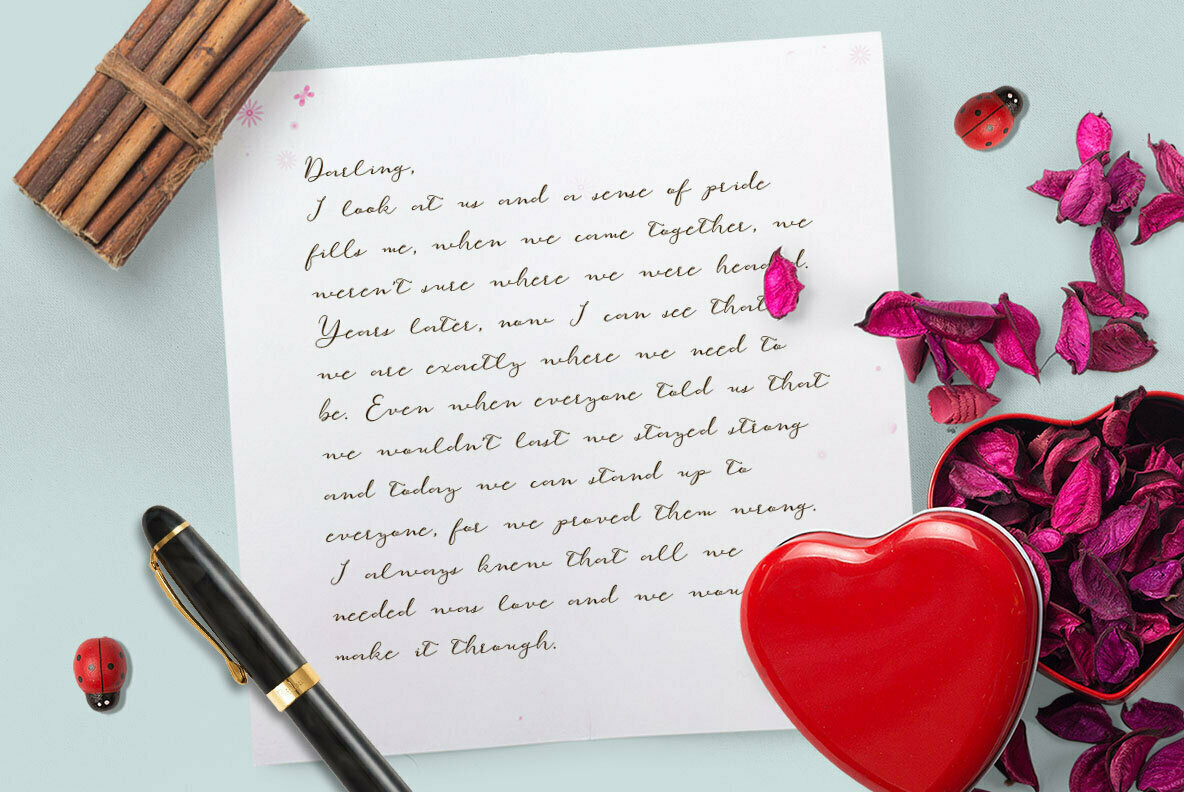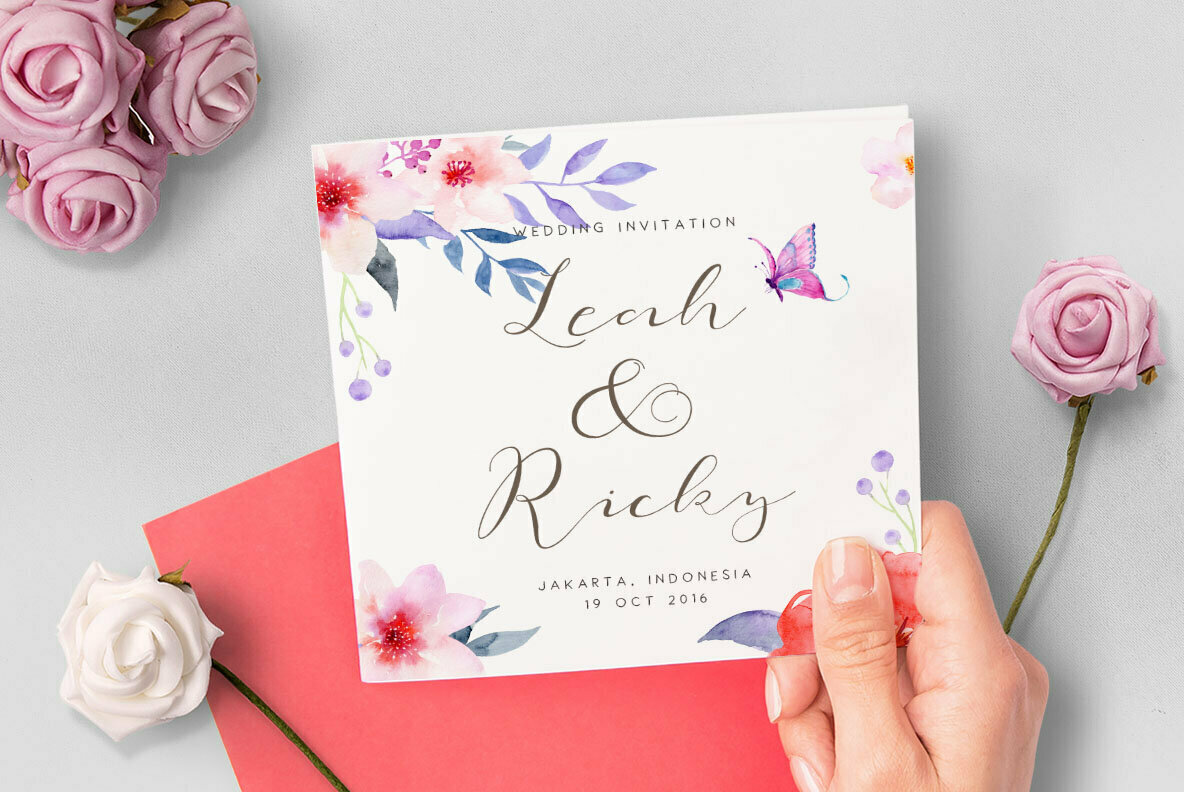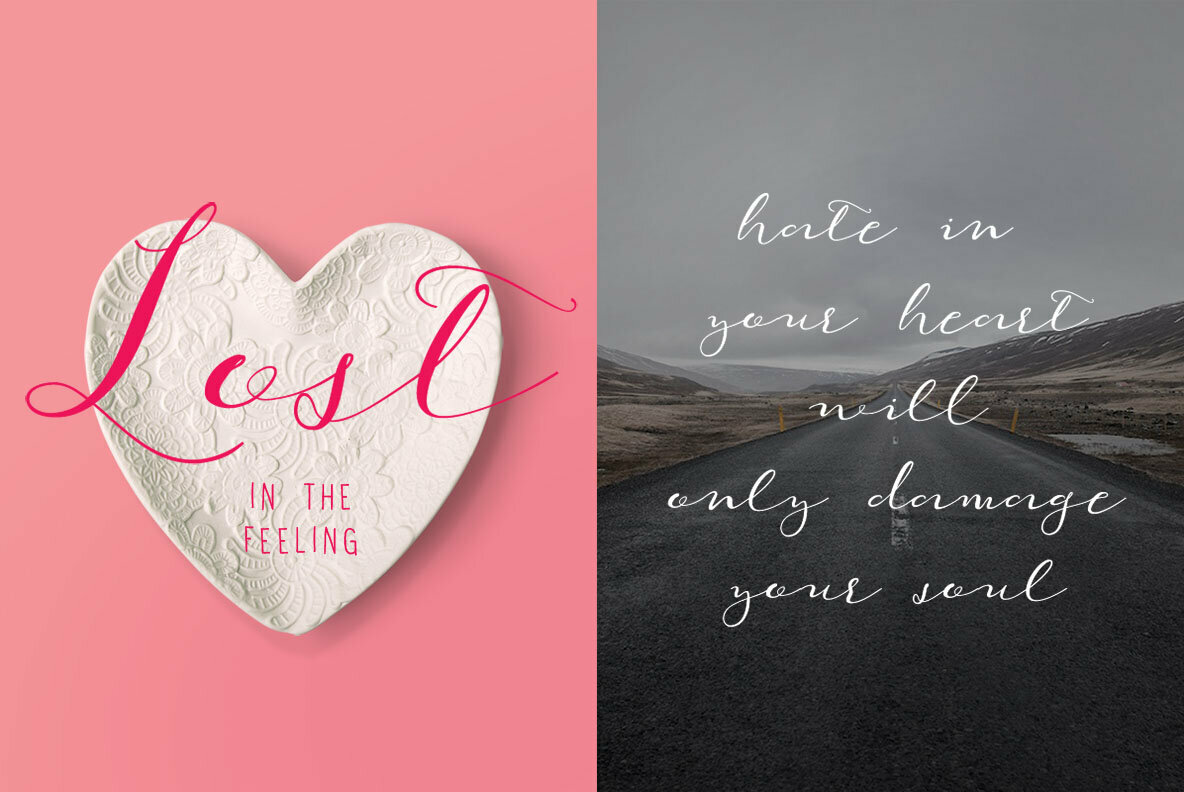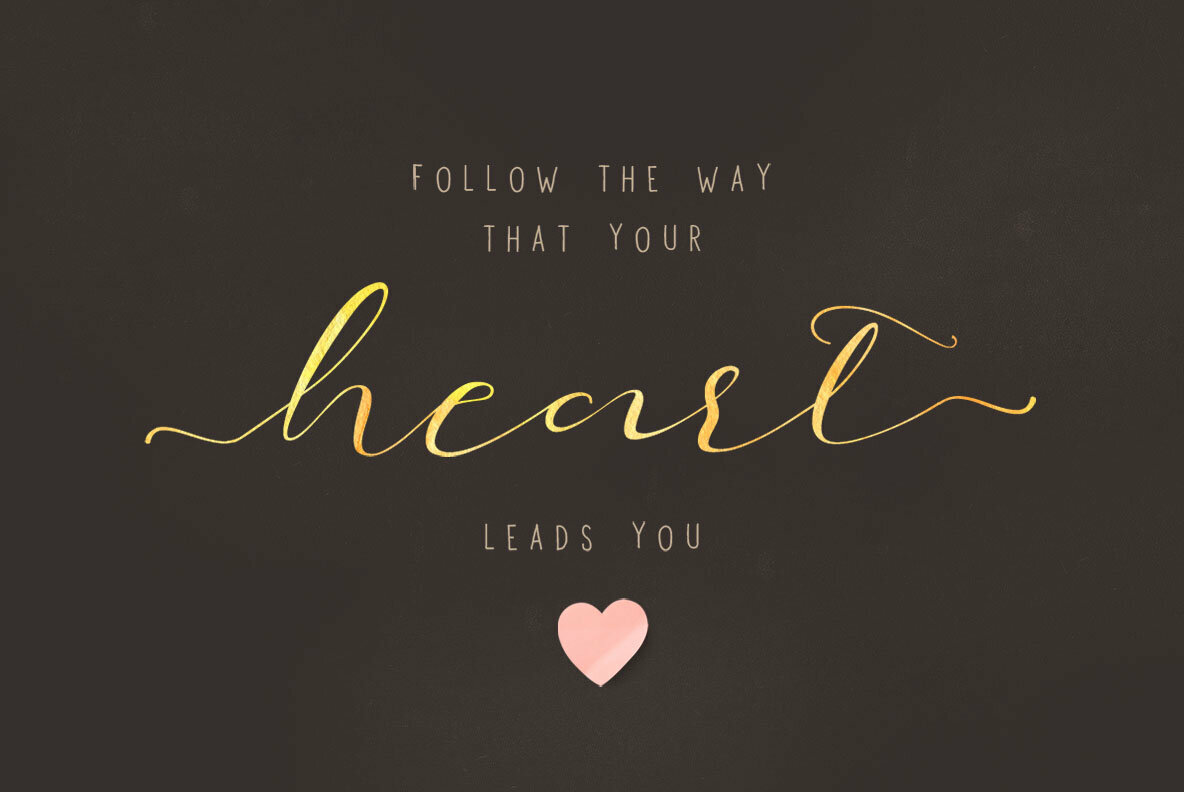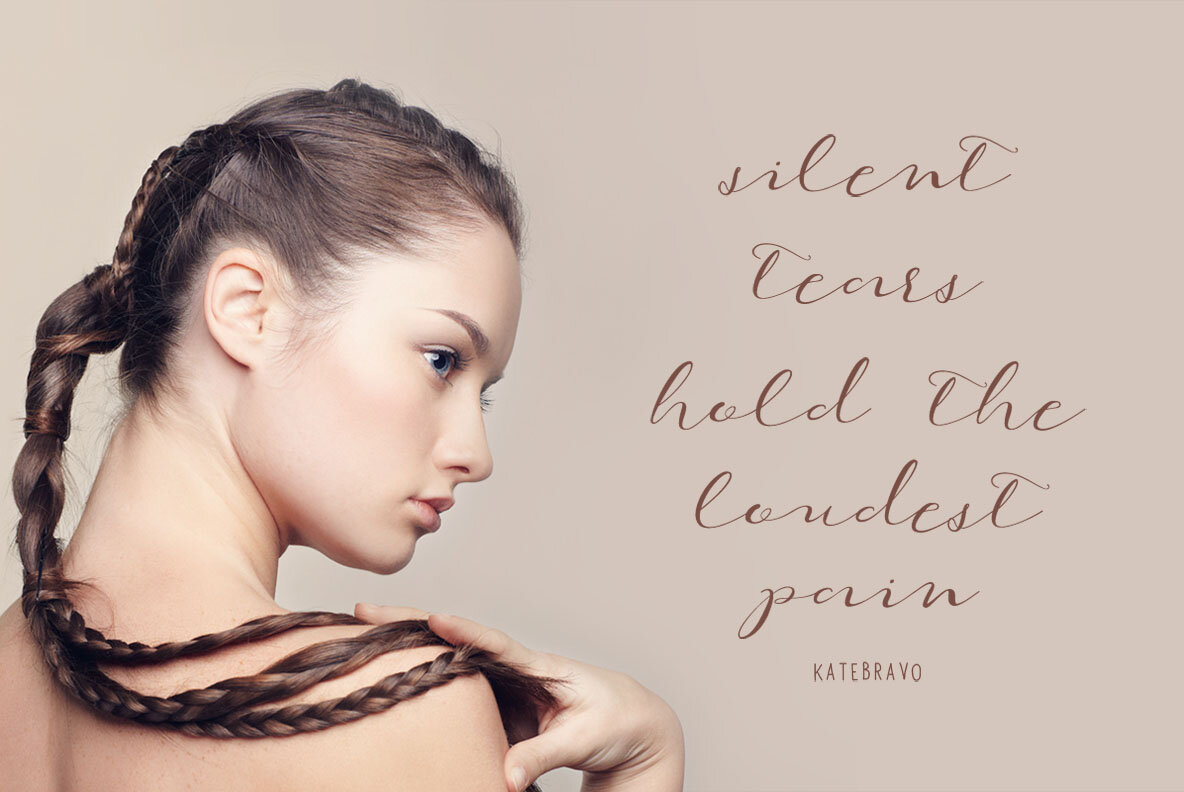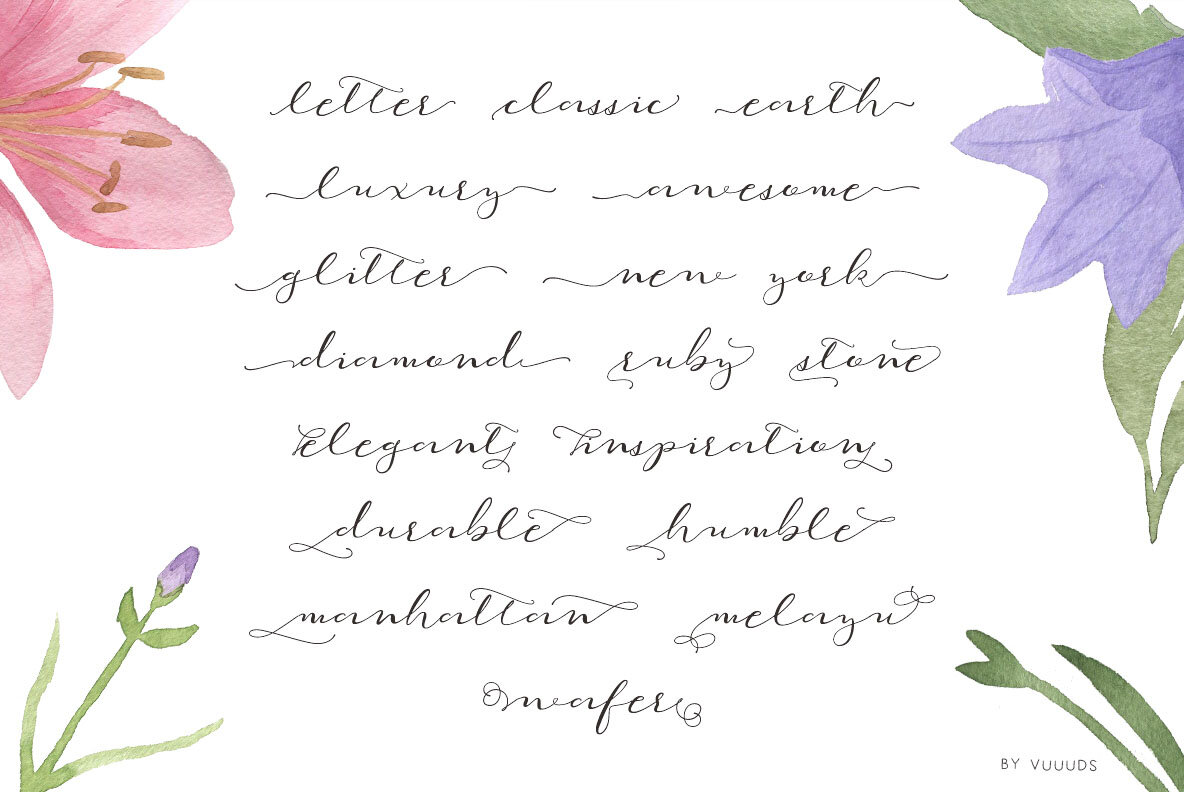
Enough Font
Enough
The allure of modern script typography lies in its ability to blend contemporary style with timeless elegance. The Enough font, crafted by Agung Syaifudin, embodies this duality, offering a gorgeous aesthetic for various design projects.Enough: A Graceful Modern Script Font